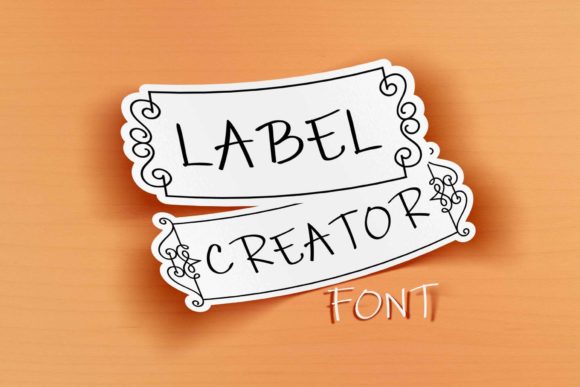
Introducing Label Creator Font, the ultimate choice for all your wedding sign needs. This elegant and distinct decorative font, created by the renowned Digital Typeface Studio, will captivate your heart and elevate your design game to new heights.
Label Creator Font is designed to leave a lasting impression on your wedding invitations, making them truly exceptional. Its ravishing style exudes sophistication and charm, adding a touch of elegance to every word. With its intricate details and graceful curves, this font will transform your invitations into a work of art, leaving your guests in awe.
But Label Creator Font doesn't stop at wedding invitations. It is also perfect for creating beautiful stationary art that will make a statement. Whether you're designing personalized thank-you cards or exquisite menu cards, this font will bring your creations to life. Let your imagination run wild as you explore the endless possibilities of Label Creator Font.
In the digital age, social media has become a powerful tool for sharing your special moments. With Label Creator Font, your social media posts will stand out from the crowd. Its unique and eye-catching style will capture the attention of your followers, ensuring that your messages are heard loud and clear. Let Label Creator Font be your secret weapon for creating stunning graphics that leave a lasting impression.
But what sets Label Creator Font apart from the rest? Its versatility and adaptability. This font seamlessly blends with various design elements, allowing you to create a cohesive look across all your wedding materials. Whether you're combining it with floral motifs or pairing it with bold typography, Label Creator Font effortlessly complements any style, making it the perfect choice for any wedding theme.
In conclusion, Label Creator Font is not just a font, it's a masterpiece waiting to be unleashed. Its captivating style, created by the experts at Digital Typeface Studio, will elevate your wedding designs to a whole new level. From stunning invitations to breathtaking stationary art and social media posts, Label Creator Font is the key to making your wedding truly unforgettable. Try it now and let your creativity soar!